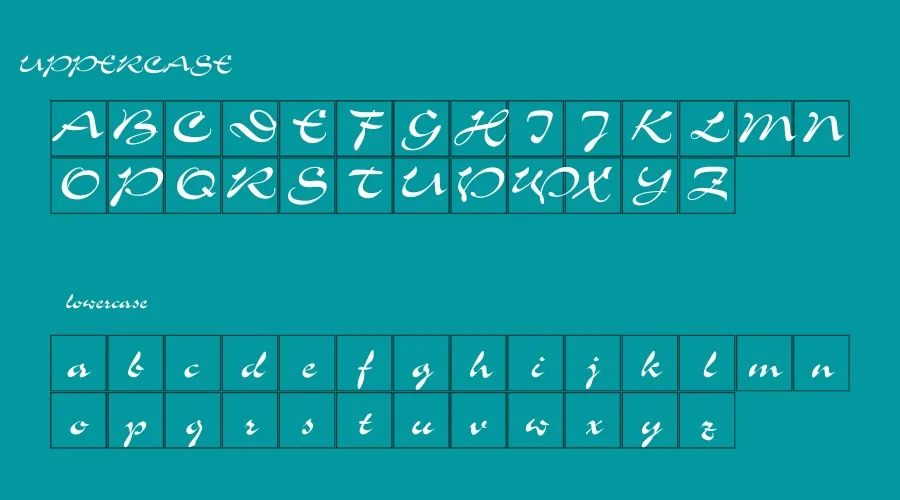
Slogan Font
About Slogan Font
Helmut Matheis designed a beautiful text style which is known as slogan font. It is best used for branding projects. It is possible to create movie posters along with their titling. The characters of this font are placed in the script font category which can download as a free version from this website.
YouTubers use it for making games and vlogs more attractive. It’s best suited to clothing, t-shirt, blouse, and pants designs. As a designer, you can use this font to design newspaper and magazine covers, and book covers.
It can be used for designing web content and web pages. This tool is useful for a variety of official design projects, such as resume template designs, thumbnail designs, and theme designs.
As a result of its fabulous and signature characteristics, it is perfect for making captivating designs such as logotypes, invitation cards, social media posts, video games, book cover presentations, website patterns, labeling projects, and printing projects.
It is also possible to pair the typeface with its matching typefaces. Artworks and placards designs can also be created with it.  With this typeface, your text and design will look well-ordered and sparkling.
It can be used to create pictures, social media posts, vibrant logos, and many other kinds of designs. Website names and headings can also be made with this font.
It is best suited for HD graphics and video design due to its cool and soft presence. As a result, we can copy and paste without any hassle. In addition to being available in many different font combinations, this typeface can be used to make designs more readable.
Font information
Name Slogan Font
Designer Helmut Matheis
Style Calligraphy
• Slogan Regular
What is the type of Slogan Font?
Slogan is a Script font in the sub-classification of calligraphy fonts. Highlights with unique textual styles. This family moreover highlighted numerous ligatures and substitutions.
What’s the Closest Font to Slogan Modern Font?
Matheis Font is very close to the Slogan Font. The tool can be used for branding projects. It is possible to create movie posters along with their titling.